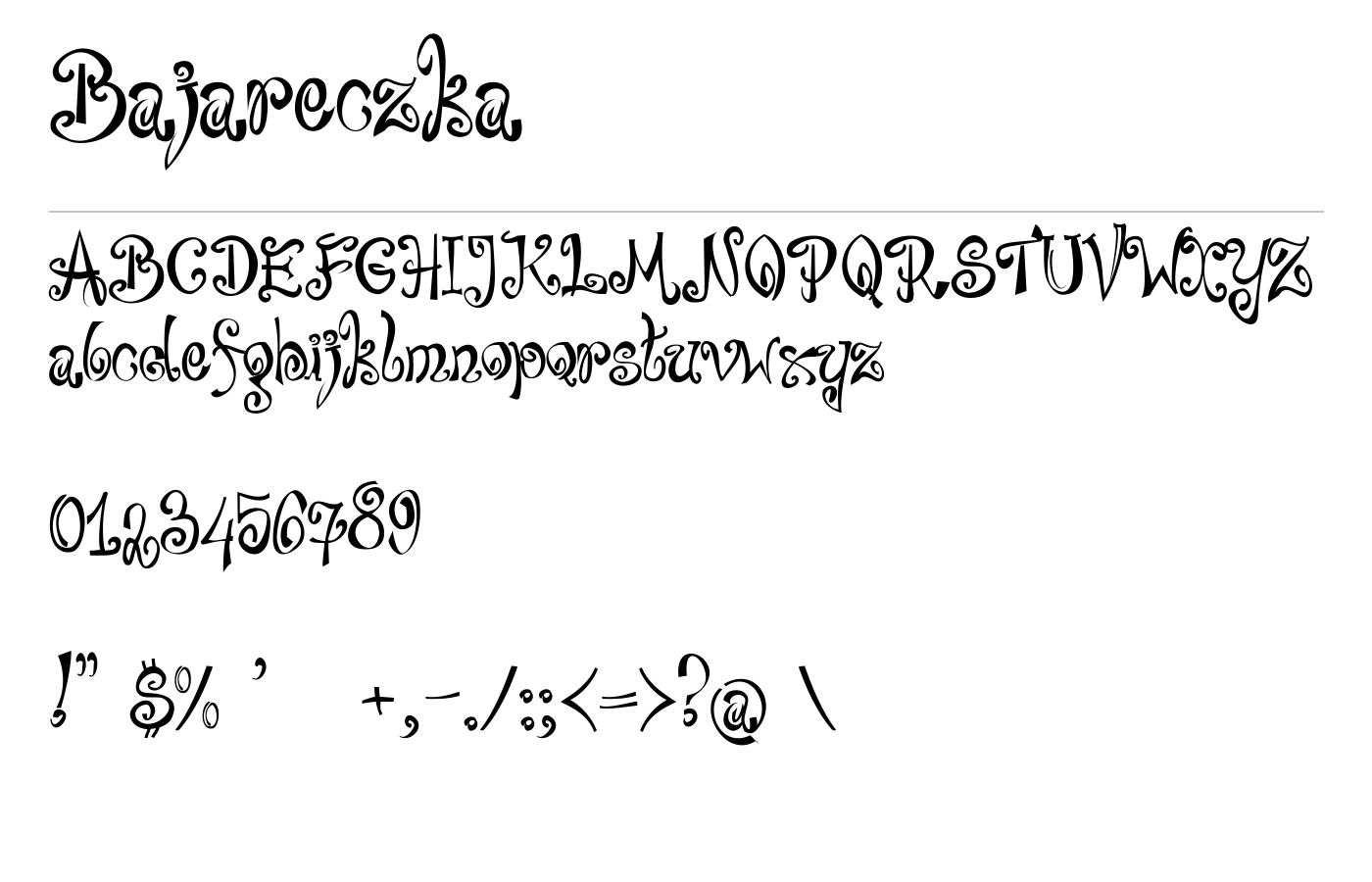
Bajareczka is a playful and whimsical serif font with elaborate, curly strokes that give it a decorative, almost fantasy-like feel. Its unique letterforms and high contrast between thick and thin lines create a lively and eye-catching style, ideal for creative projects, logos, and headlines where a quirky, artistic personality is desired. This font works best in designs that aim to stand out with charm and character, such as invitations, posters, or branding for artistic and playful brands.
Bajareczka Font